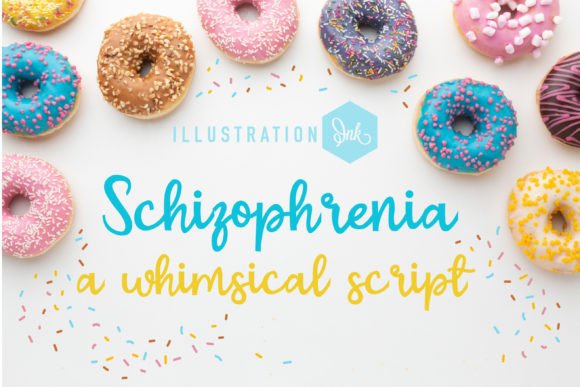
Step into the world of Schizophrenia Font, a captivating script font that dances across your screen, leaving a trail of elegance and charm. Handcrafted with a touch of casual cursive and thicker, craftier lines, Schizophrenia Font is a masterpiece that captures the essence of free-flowing ink. Let your creativity run wild as you explore the possibilities of this exquisite font, crafted with perfection by Illustration Ink.
With Schizophrenia Font, you're not just downloading a font; you're embarking on a journey of artistic expression. Its unique style adds a touch of sophistication to your designs, making them stand out from the crowd. Whether you're designing wedding invitations, greeting cards, posters, or social media posts, Schizophrenia Font will elevate your work to new heights.
Immerse yourself in the world of Schizophrenia Font and unleash your imagination. Let its sinuous curves and graceful lines guide you to create designs that captivate and inspire. From heartfelt messages to bold statements, Schizophrenia Font empowers you to convey your ideas with a touch of elegance and flair.
In addition to its aesthetic appeal, Schizophrenia Font is also incredibly versatile. Whether you're working on a vintage-inspired project or a modern masterpiece, Schizophrenia Font seamlessly adapts to your vision. Its bold, stencil version adds a touch of edginess, perfect for creating eye-catching logos and posters.
Join the ranks of creative professionals who have fallen in love with the magic of Schizophrenia Font. Let its flowing lines and captivating style elevate your designs to new heights. Embrace the beauty of hand-drawn elegance and witness the transformation of your creative projects into works of art.